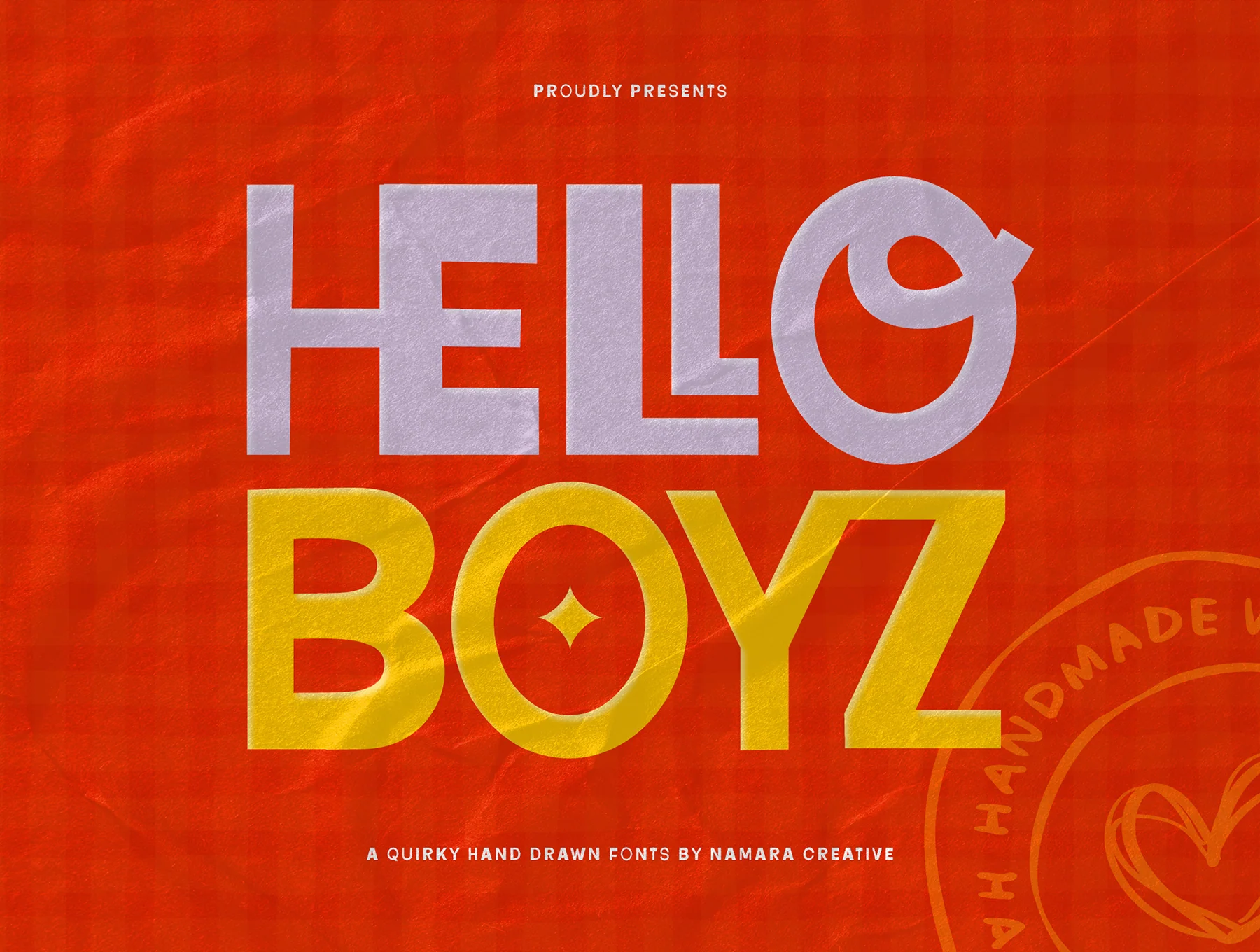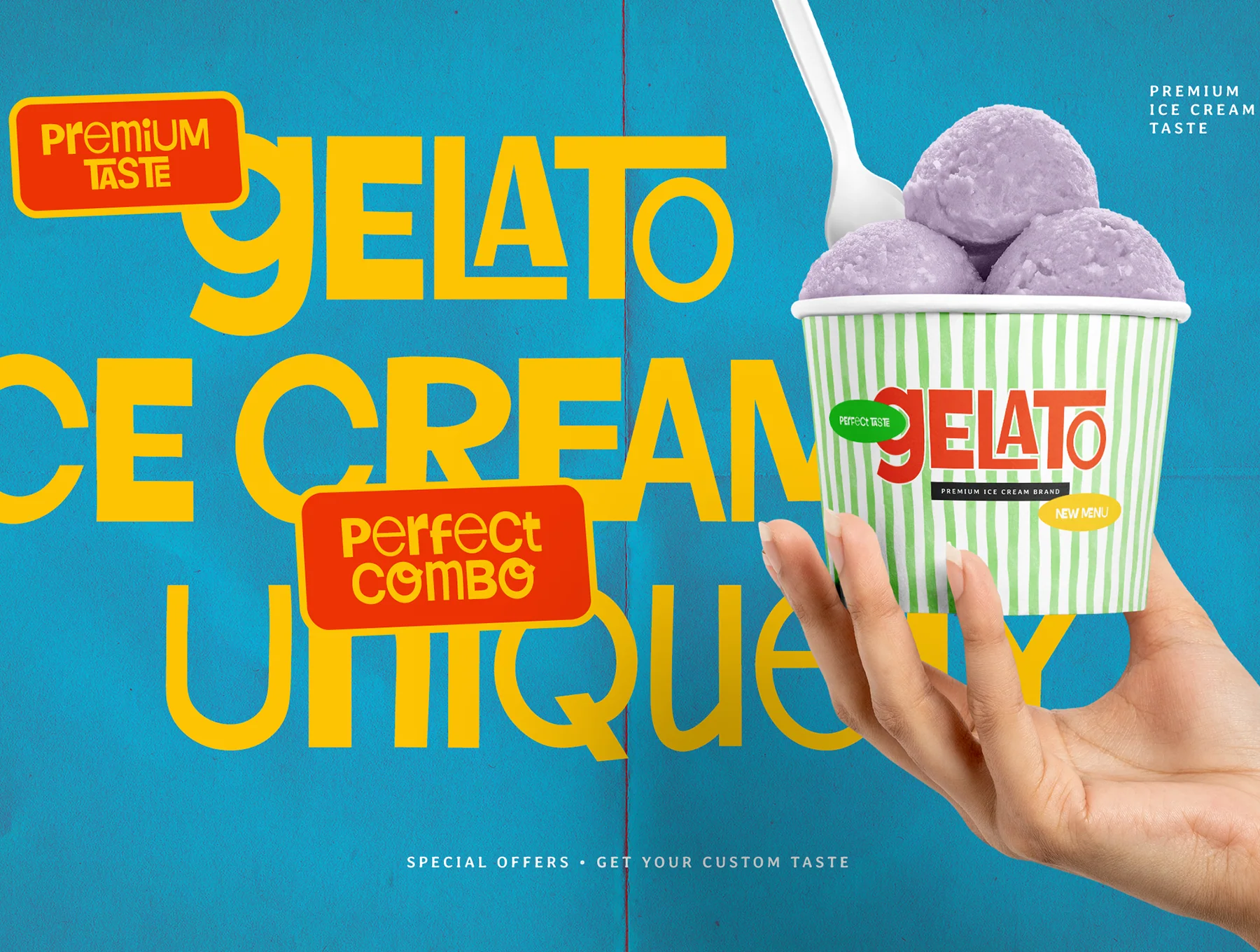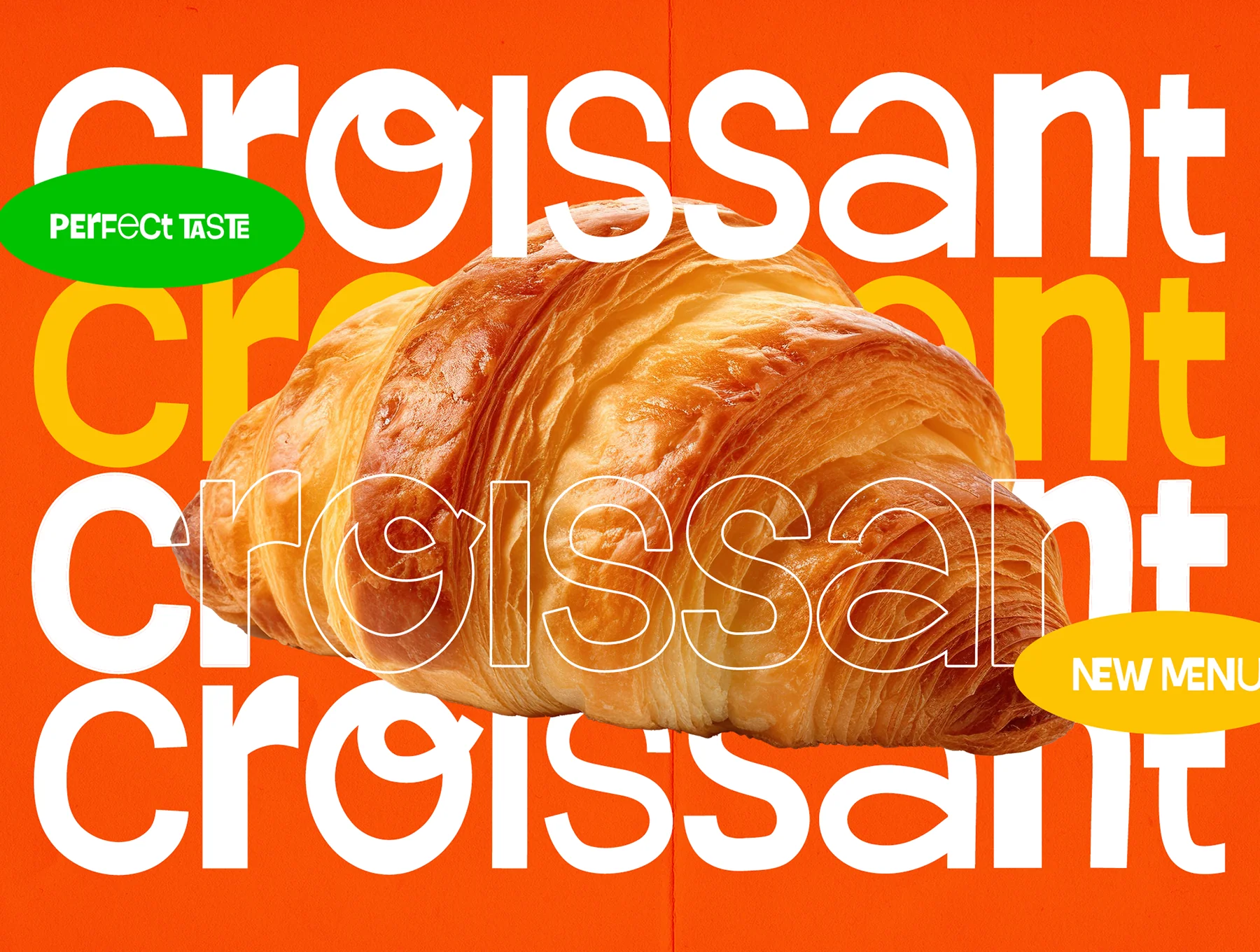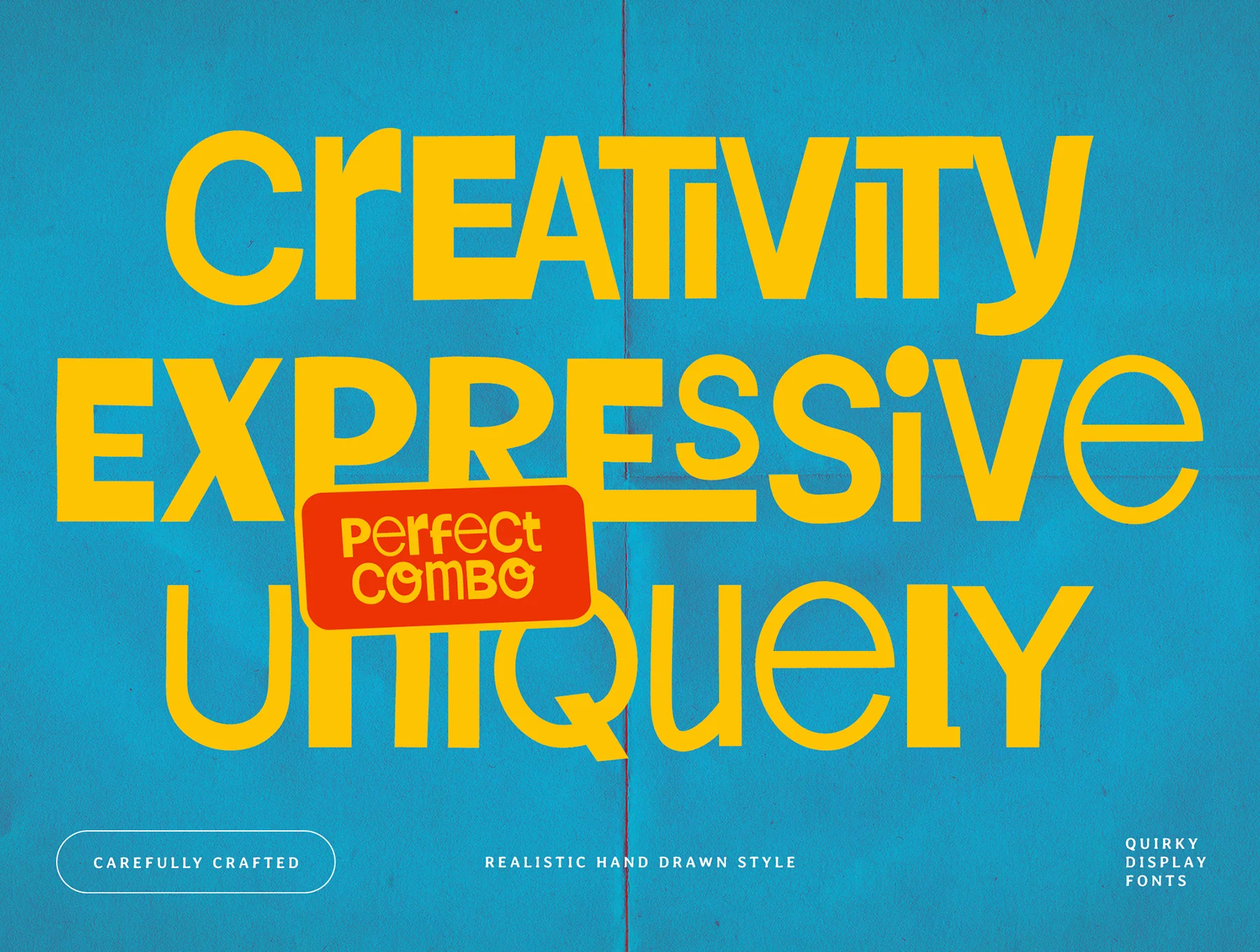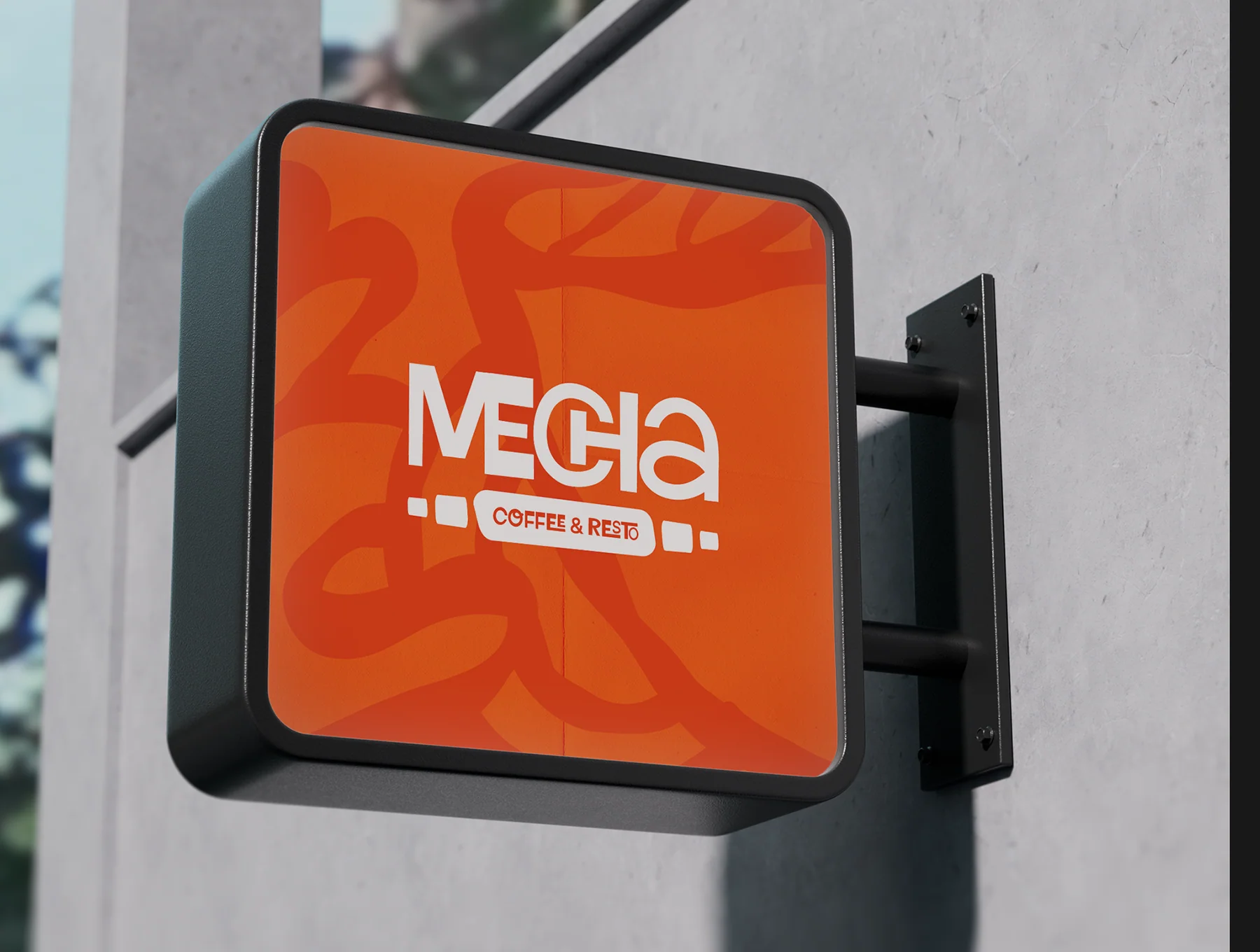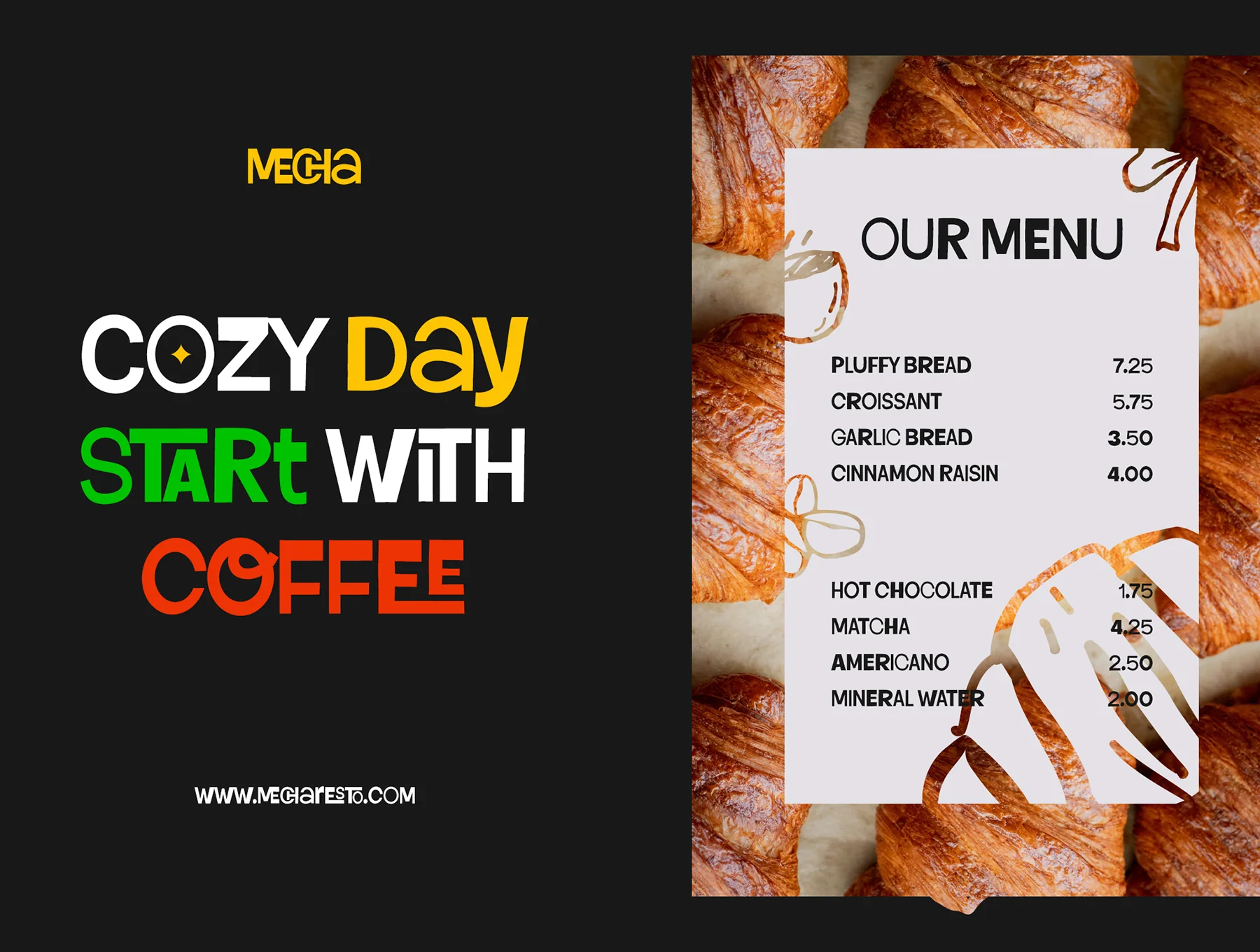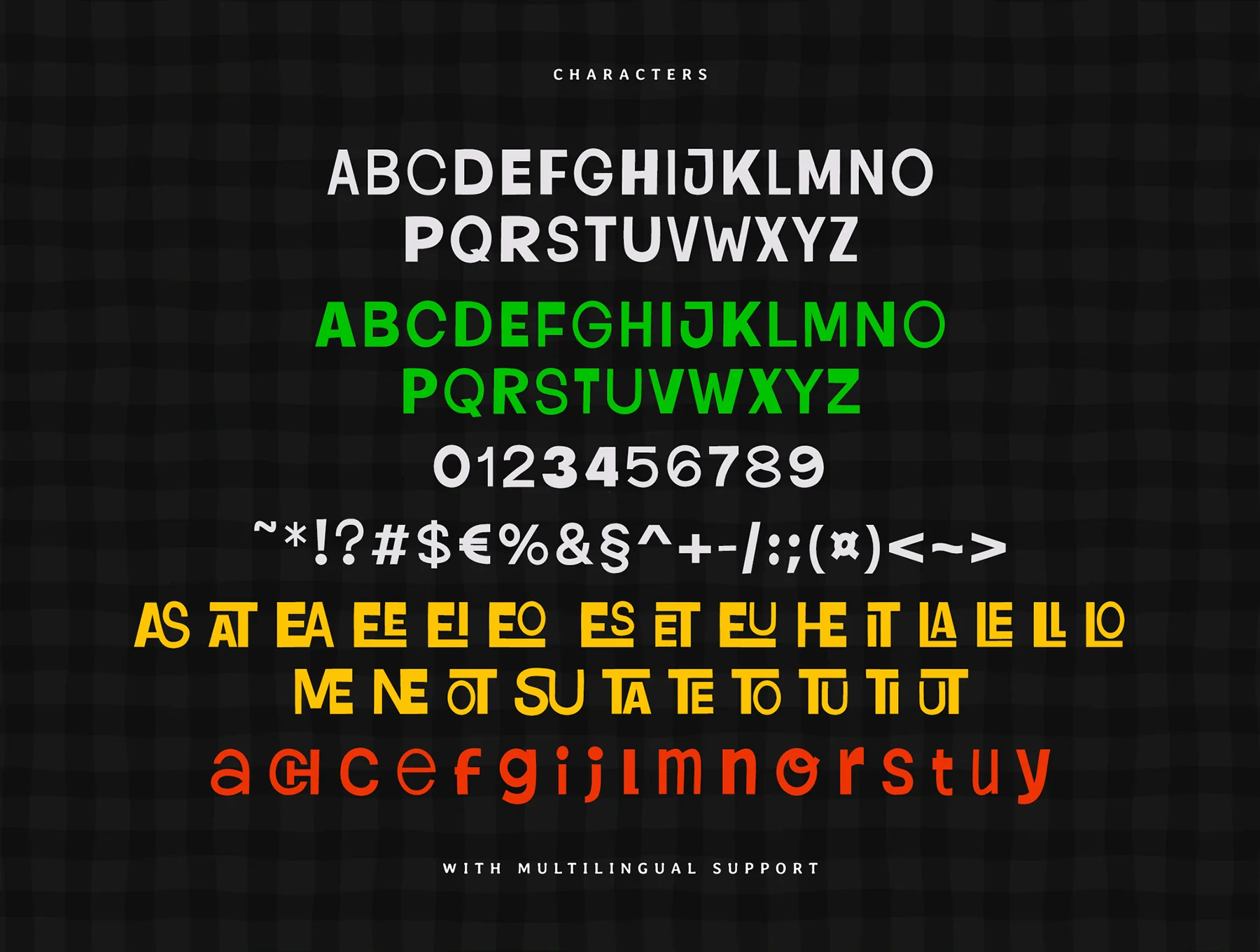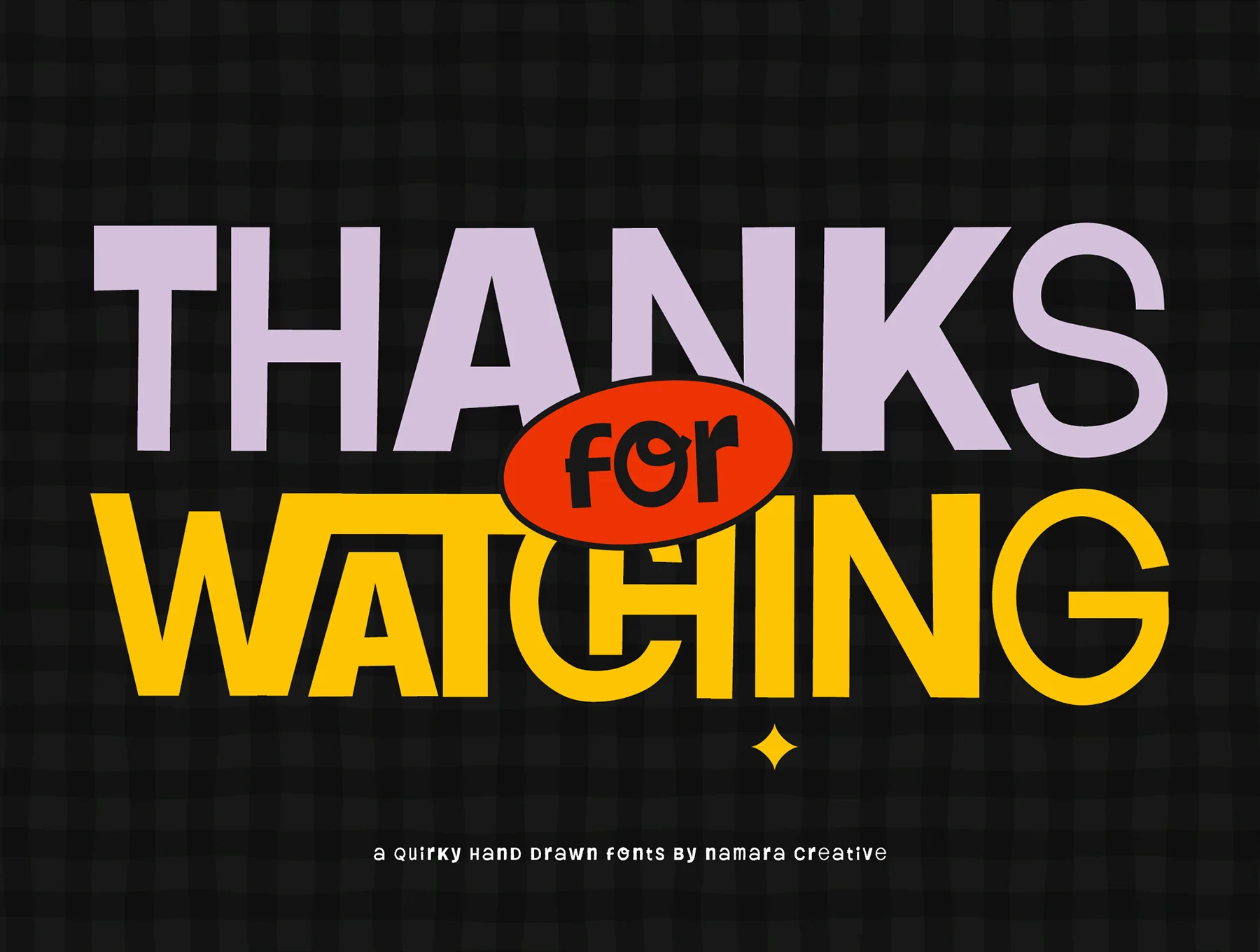
Hello Boyz - Quirky Hand Drawn Fonts
For a sleek throwback feel or a fun standout style, H
Unique sketched look with textured, imperfect letterforms
Thick, rounded shapes for clear, friendly display use
Broad ligature and alternate options for custom typography
Wide multilingual coverage with accented characters
A carefully designed display font with a playful hand-drawn style and a strong, assured look. This distinctive typeface grabs attention with rounded characters and a light realistic texture, bringing an authentic, custom-crafted feel to any creative project.